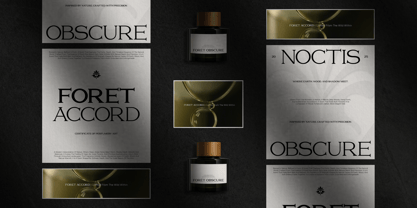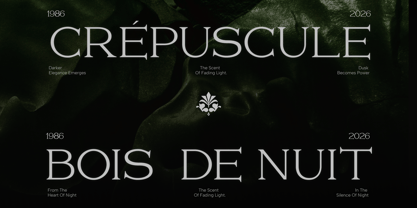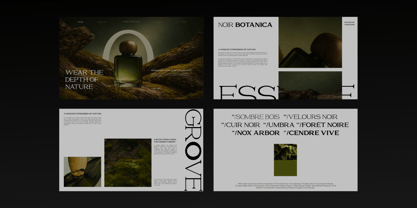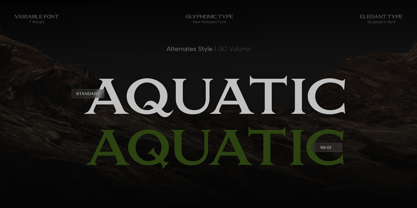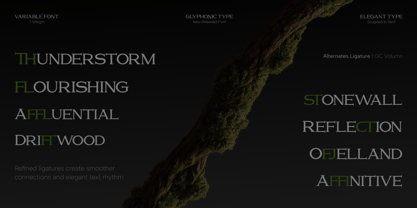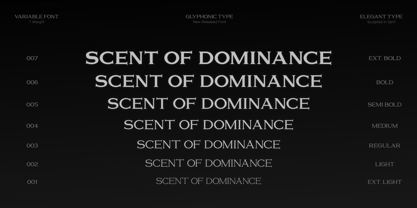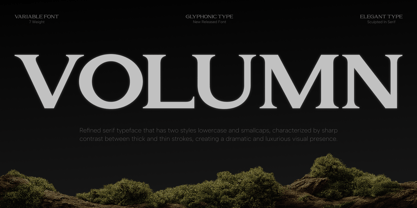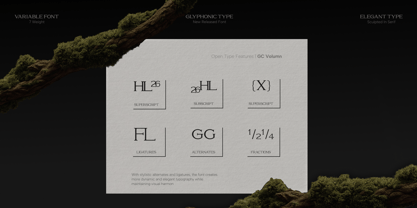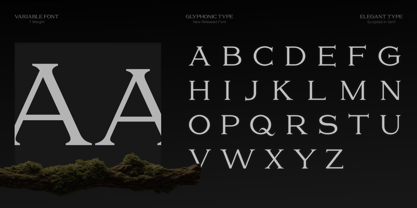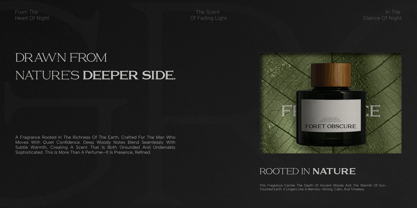
GC Volumn
by Onyx Studio
The GC Volumn Font Family was designed by Muhammad Hafiizh Solana and published by Onyx Studio. GC Volumn contains 7 styles and family package options. More about this family
GC Volumn – Elegant Serif Typeface is a refined serif typeface designed to express luxury, elegance, and dramatic visual beauty. Built with sculpted serif details, balanced proportions, and sharp contrast between thick and thin strokes, Volumn delivers a timeless typographic voice with a strong editorial presence.
With its graceful curves and sophisticated structure—as seen in its high-contrast letterforms—GC Volumn creates a luxurious and expressive appearance that feels both classic and modern. The elegant serif construction enhances readability while maintaining a striking visual impact across large compositions.
As a variable font with 7 weight options, GC Volumn offers flexibility for designers to create refined hierarchy and expressive typography across branding, editorial layouts, fashion campaigns, luxury packaging, and cinematic visual identities. The inclusion of alternate lowercase styles and smallcaps adds versatility and elevated typographic character.
Crafted for both digital and print environments, GC Volumn blends timeless serif elegance with modern sophistication, making it perfect for projects that demand beauty, clarity, and premium visual refinement.
• Variable Font (7 Weight Options)
• Elegant Serif Construction
• Uppercase & Lowercase
• Alternate Lowercase & Smallcaps
• Numbers & Punctuation
• High Contrast Thick & Thin Strokes
• Multilingual Support (170+ Languages)
GC Volumn — dramatic serif elegance with timeless luxury and refined expression.
Designers: Muhammad Hafiizh Solana
Foundry: Onyx Studio